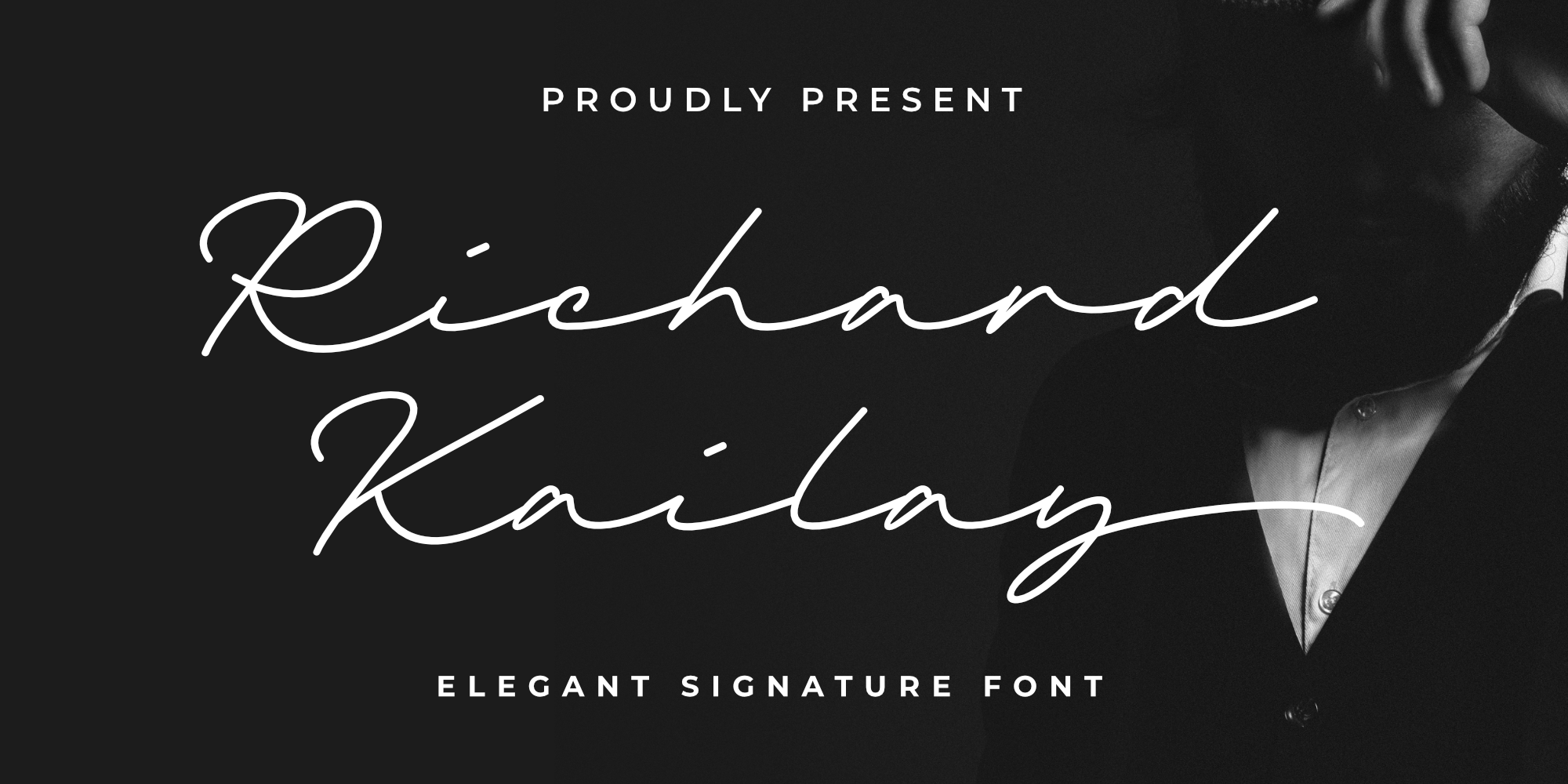
Ricard Kailay
Ricard Kailay is a script font family published by Silverdav Studio.
Introducing, Richard Kailay font, with an elegant style, is here to give a luxurious impression to your design, made with consistent strokes so as to produce works that will perfect your design, there are many alternatives and ligatures to add a luxurious impression to your design.
Richard Kailay is very suitable for Branding, Logos, Magazines, handicrafts, quotes, book covers, wedding invitations, and more.